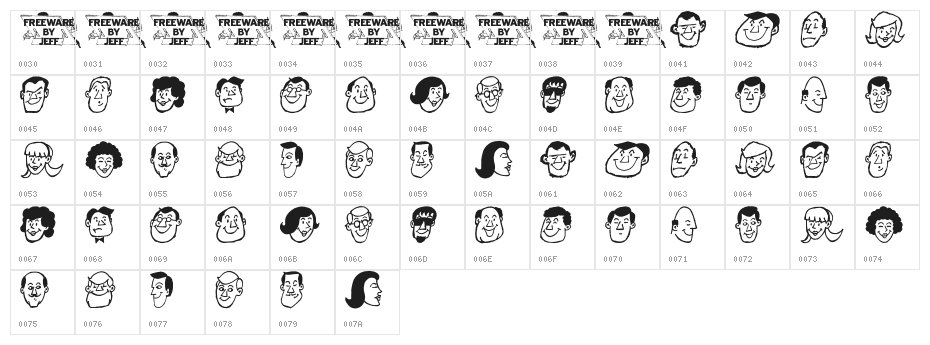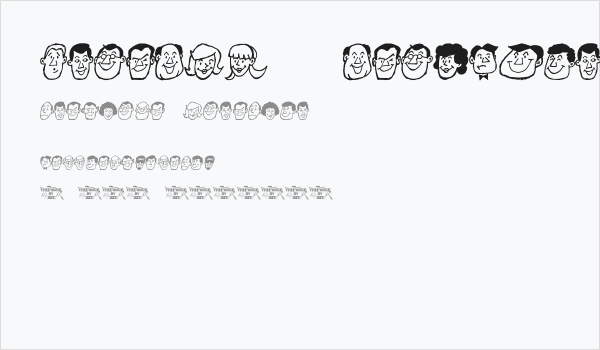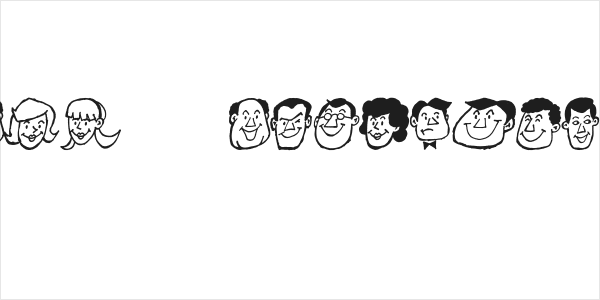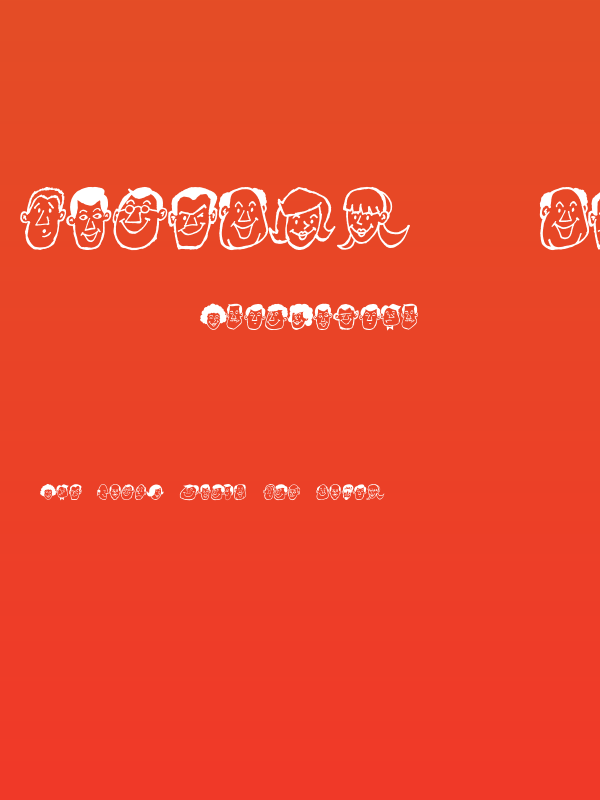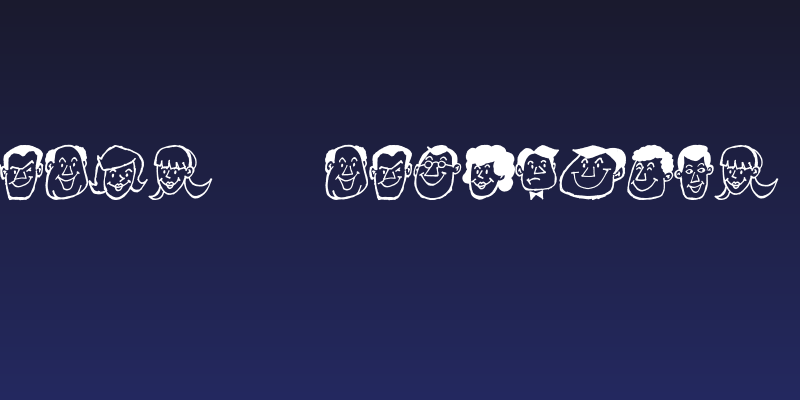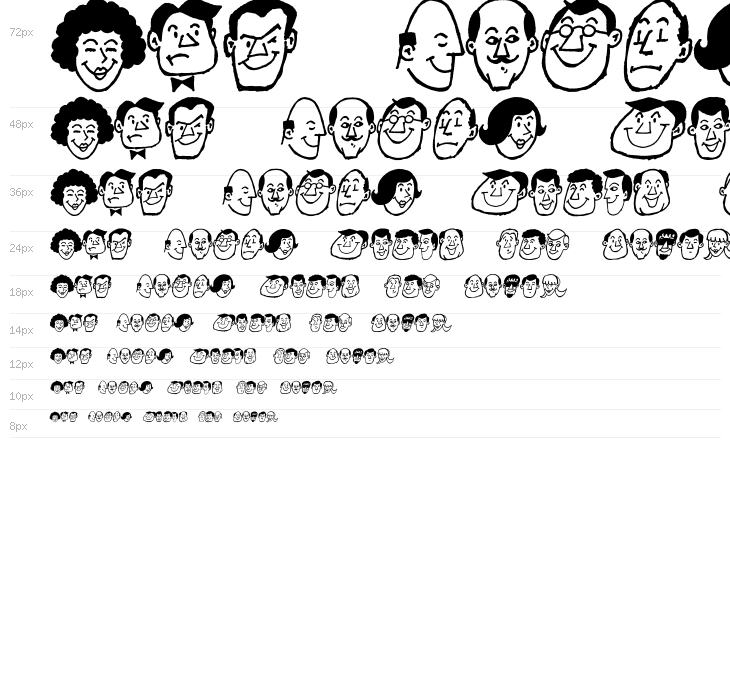
Friends & Neighbors JL Font
Friends & Neighbors JL Description
A decorative font composed entirely of hand-drawn cartoon faces, each character represented by a unique illustrated head, creating a playful and whimsical effect. The style is bold, with thick outlines and expressive features, making each glyph distinct and lively.
| Overall Style | Whimsical, Playful, Cartoonish |
| Use Case | Logos, Headlines, Posters, Themed event materials |
| Proposed Projects | ChildrenΓ’β¬β’s books, party invitations, comic strips, playful branding, educational materials. |